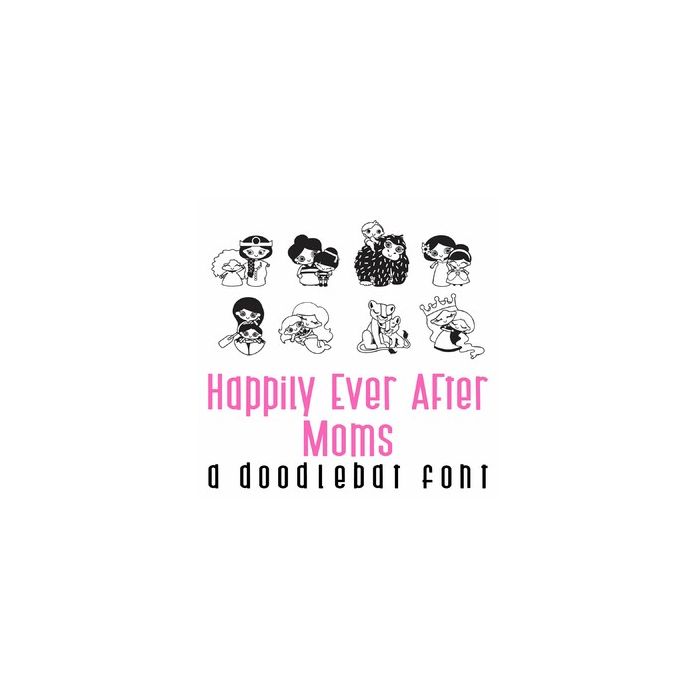
This adorable doodlebat font features 27 images of your favorite fairytale characters with their moms. Perfect for Mother's day, parties, gifts, decor, card making, scrapbook pages, planner stickers and more! A-Z and 0